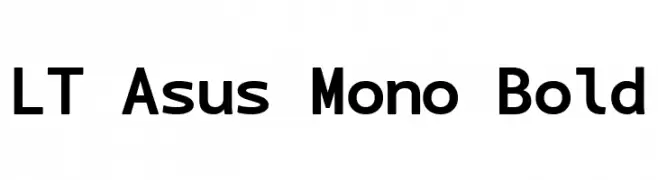
A bold, monospaced font with clean lines and high legibility.
A bold, monospaced font with a modern and robust design.
A bold, modern monospaced font with uniform character width and geometric design.